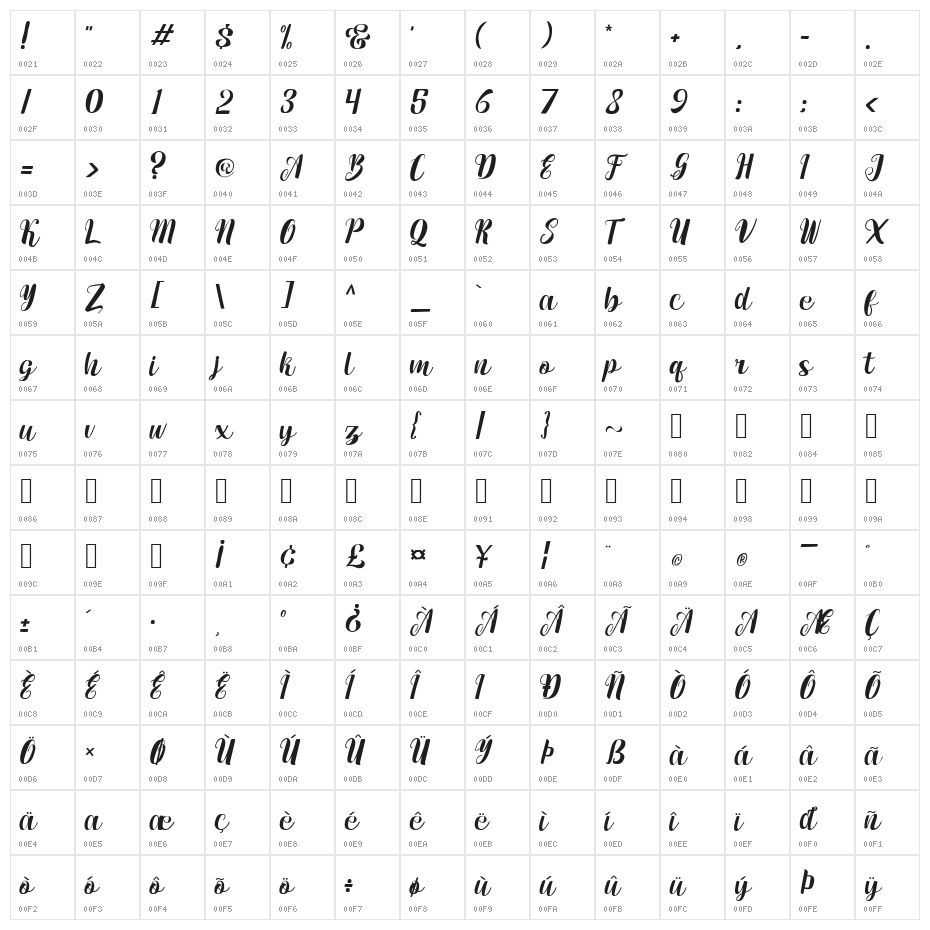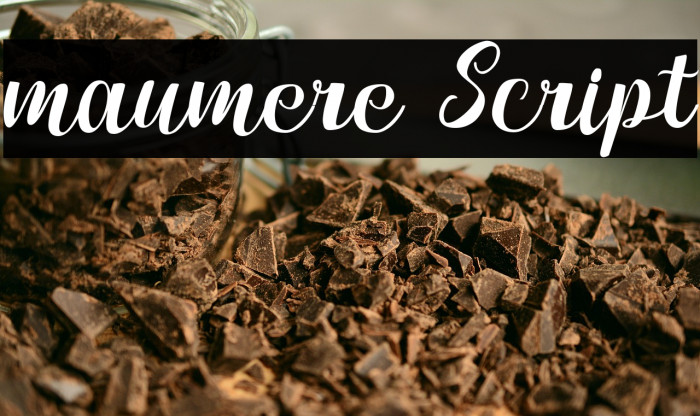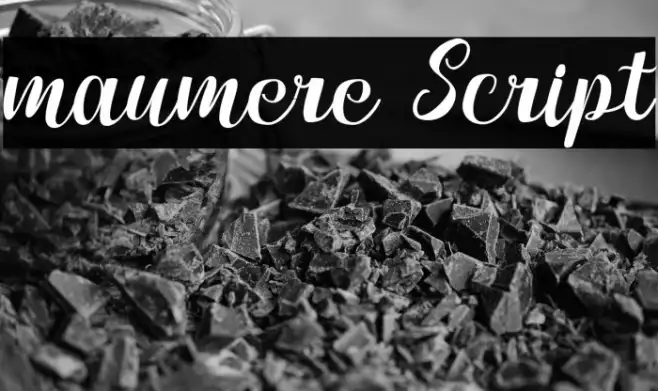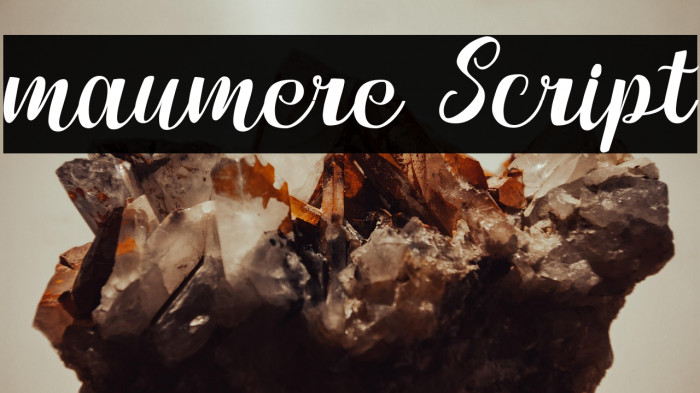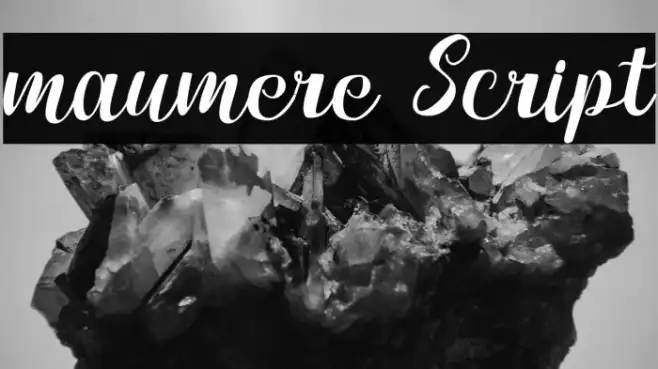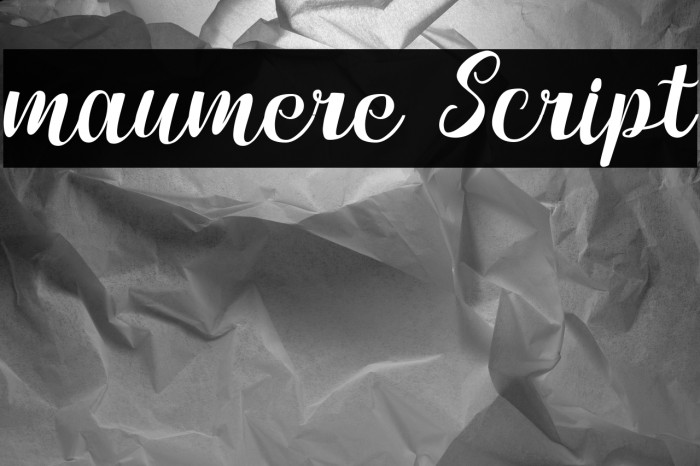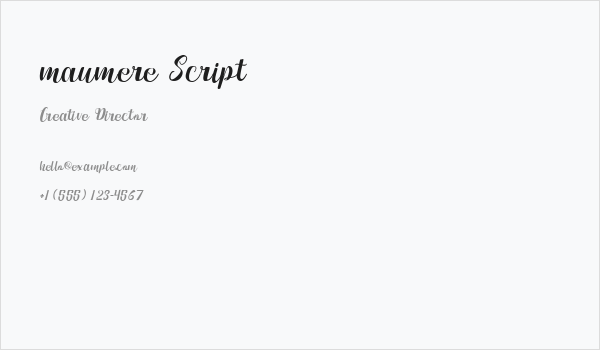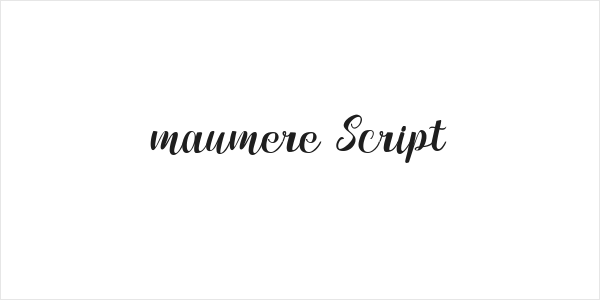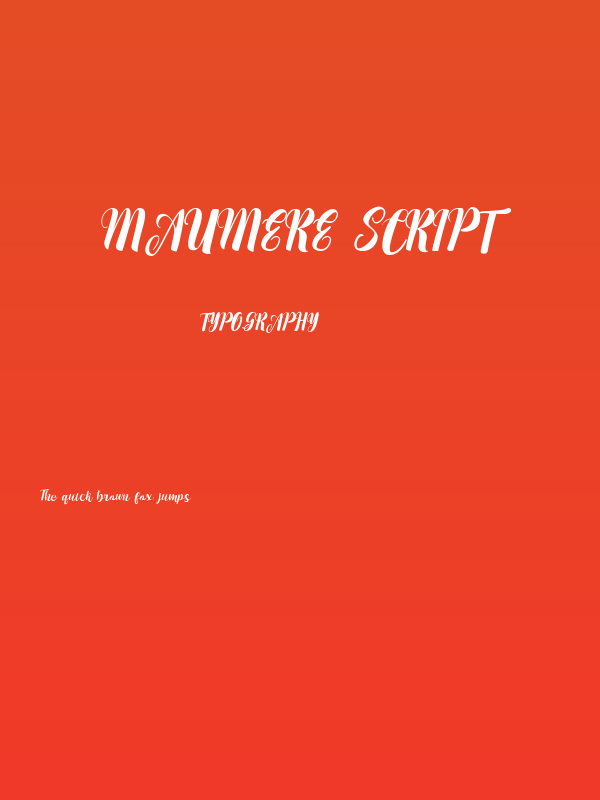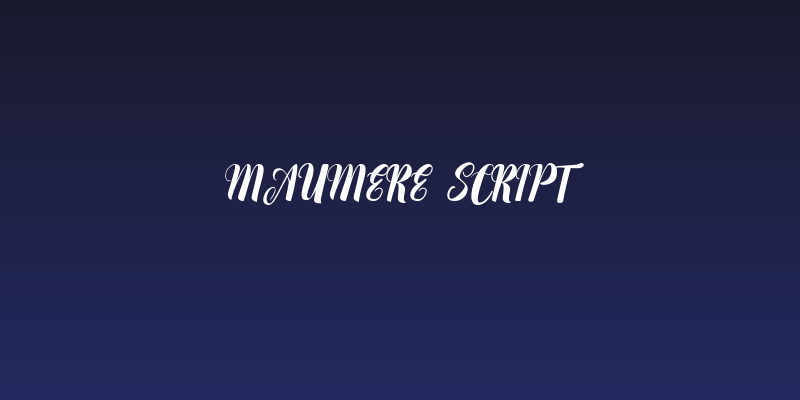
maumere Script Font
maumere Script Description
This font is a stylish and elegant script typeface with a flowing, cursive design. The characters are connected, giving it a handwritten feel that is both sophisticated and approachable. The uppercase letters are ornate, with flourishes that add a touch of glamour, while the lowercase letters maintain a smooth and consistent flow. The numbers and special characters are designed to match the overall aesthetic, ensuring a cohesive look across all text. This font is perfect for projects that require a personal touch or a sense of elegance.